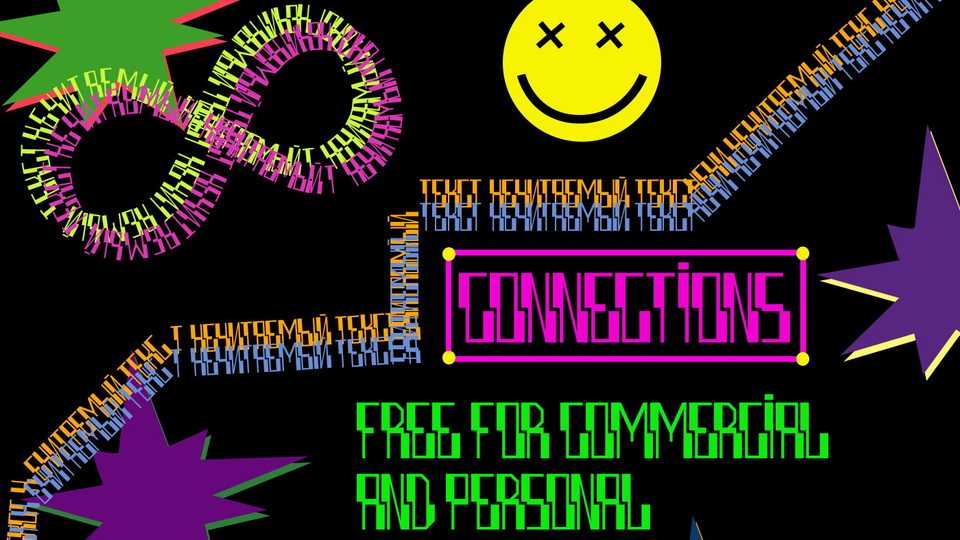
Download Connections_and_Order font a unique geometric display typeface. A certain look at geometric shapes creates something inexplicable and unreadable, but if you look closely, you can find order in chaos.